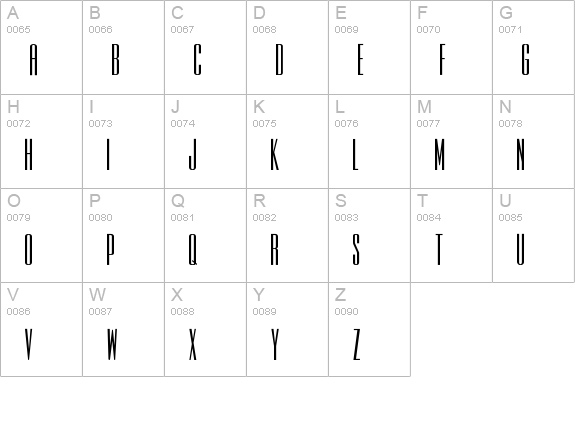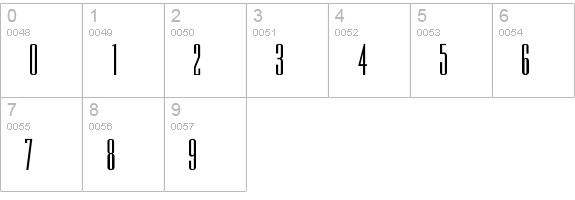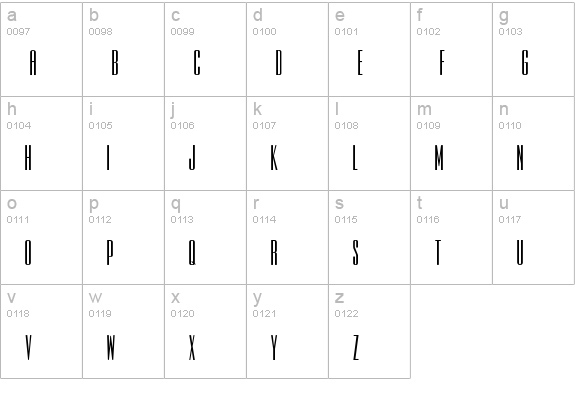
Searchlight Font Details
Searchlight font is a stunning and versatile typeface that will captivate your audience with its elegant and modern design. This font is perfect for any project that requires a touch of sophistication and style. Whether you are designing a logo, creating a poster, or crafting a website, Searchlight font will elevate your work to new heights. One of the most remarkable features of Searchlight font is that it is absolutely free. That's right, this amazing font can be downloaded for free at FontsMarket.com. This means that you can use Searchlight font for all your personal and commercial projects without having to worry about any licensing restrictions or fees. It's a fantastic opportunity to enhance your designs without breaking the bank. The versatility of Searchlight font is truly remarkable. Its clean lines and modern curves make it suitable for a wide range of applications. Whether you want to create a minimalist and sleek design or add a touch of elegance to your project, Searchlight font has got you covered. With its wide range of weights and styles, you can easily customize the font to suit your specific needs. Searchlight font also offers excellent legibility, making it perfect for both print and digital media. Its carefully crafted characters ensure that your message is clear and easy to read, even at small sizes. This makes it ideal for body text, headings, captions, and any other text elements you may need. So why wait? Download Searchlight font for free at FontsMarket.com and elevate your designs to new heights. With its elegant and modern design, versatility, and excellent legibility, Searchlight font is a must-have for any designer or creative professional. Don't miss out on this incredible opportunity to add a touch of sophistication to your projects without spending a dime.